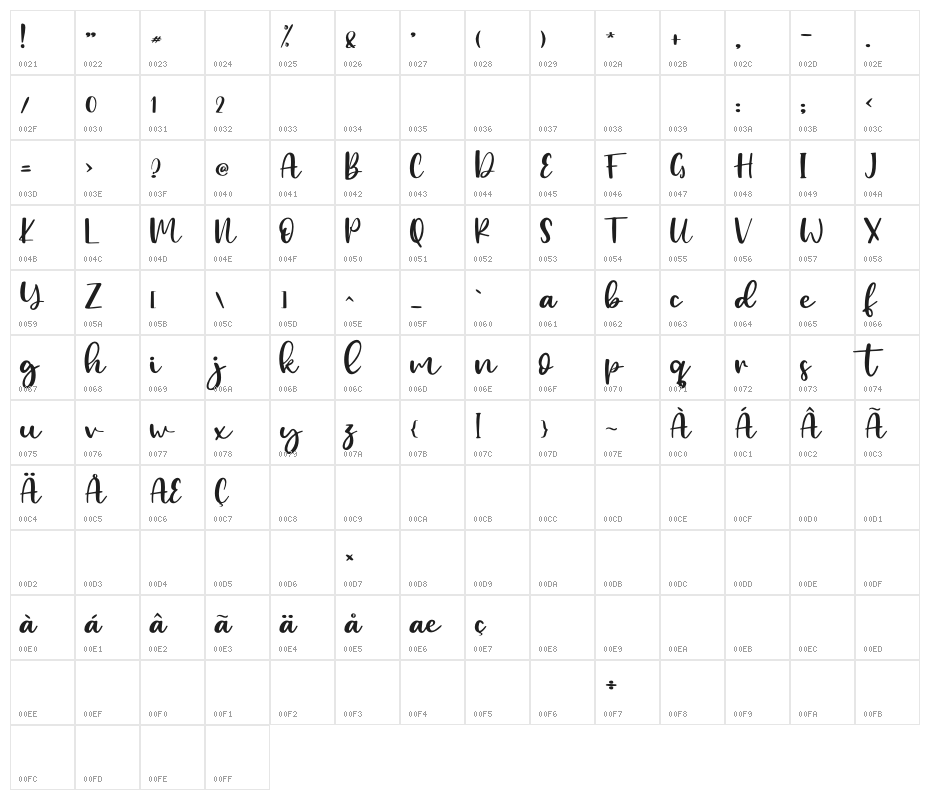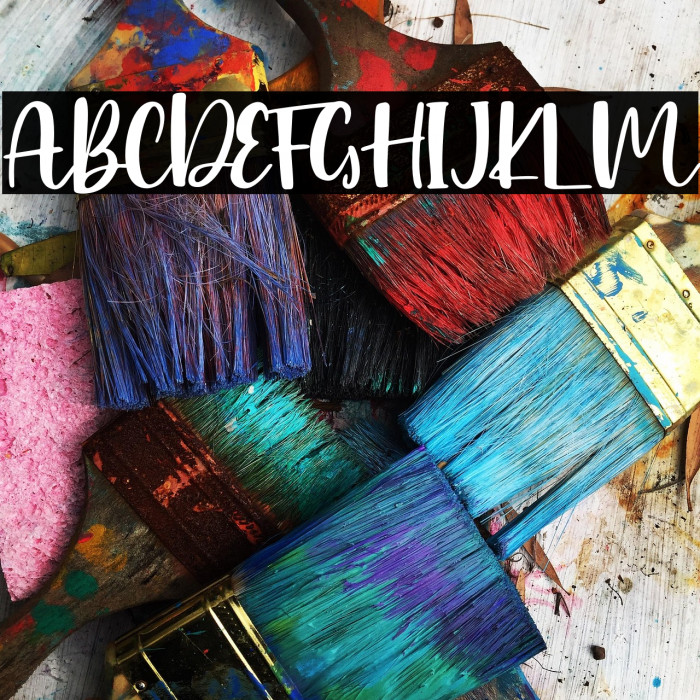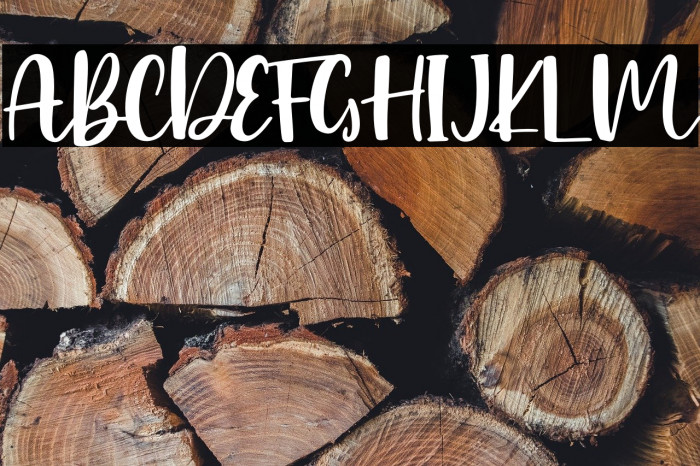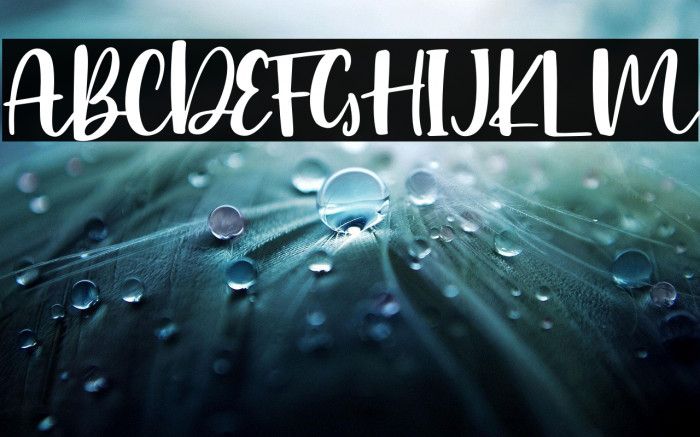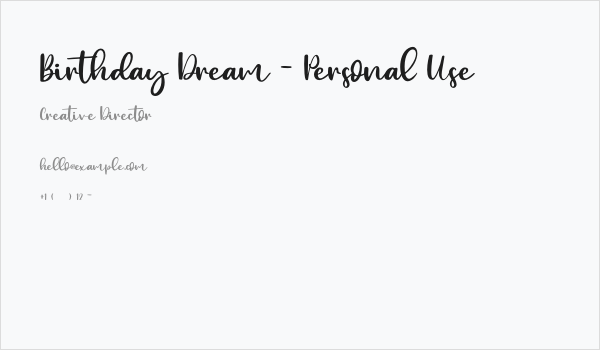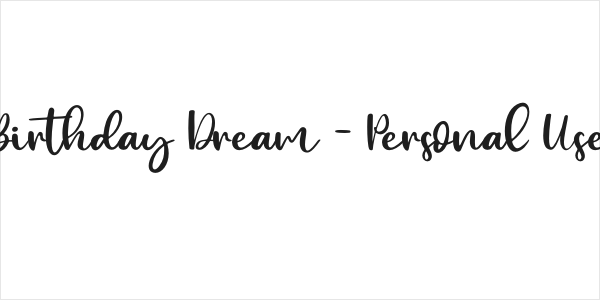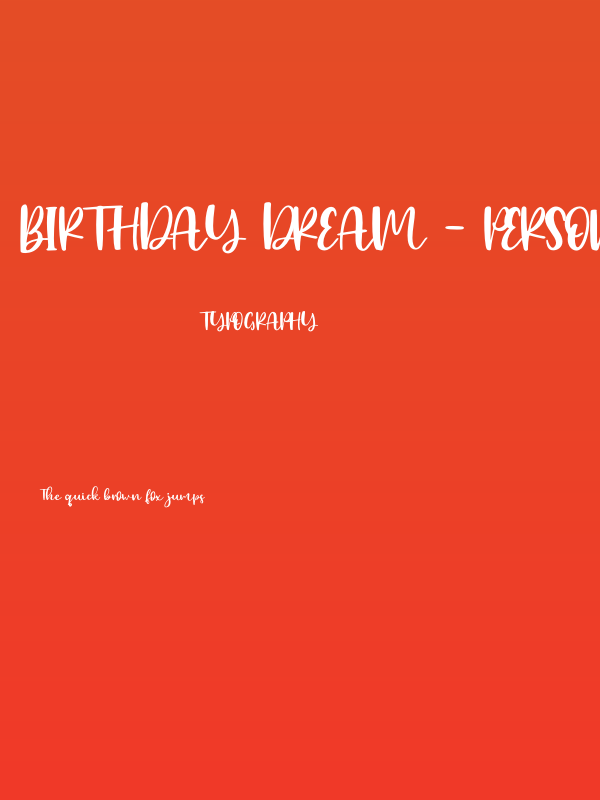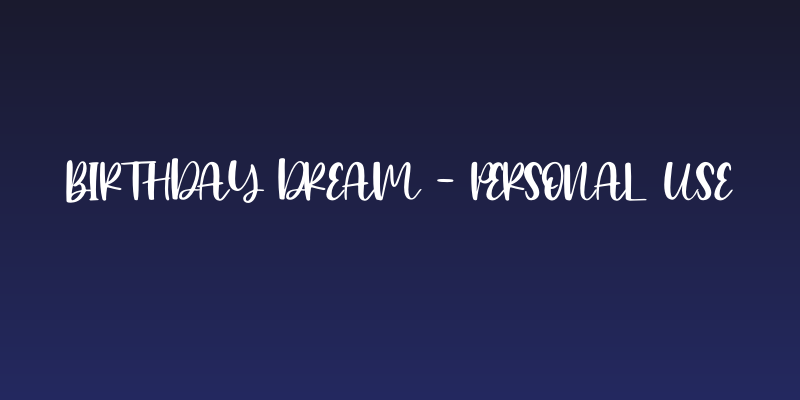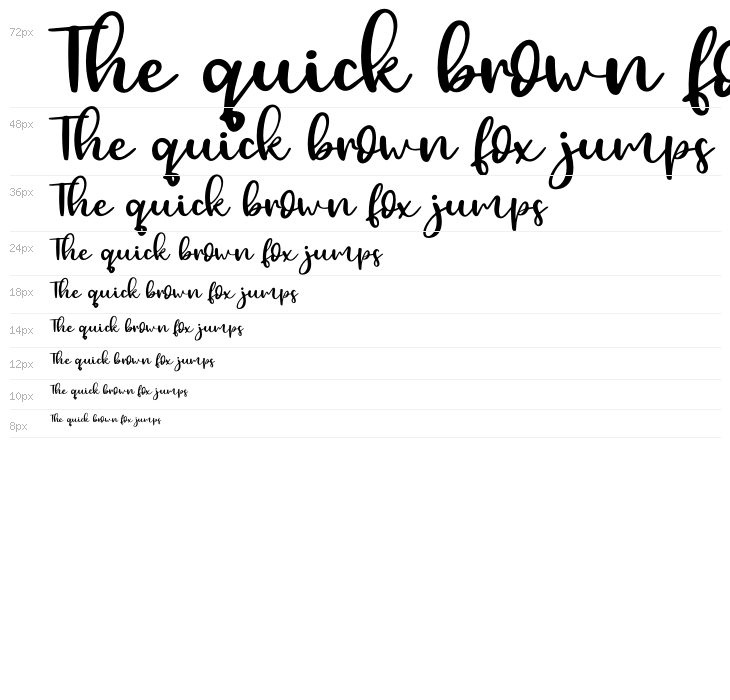
Birthday Dream - Personal Use Font
Birthday Dream - Personal Use Description
This font features a playful and whimsical script style, characterized by its flowing, cursive letters that exude a sense of joy and celebration. The uppercase letters are bold and slightly slanted, with a consistent stroke width that adds to the font's lively appearance. The lowercase letters maintain the same playful aesthetic, with loops and curves that enhance its handwritten feel. Numbers and special characters are designed to match the overall style, ensuring a cohesive look across all text. This font is perfect for projects that require a personal touch, such as invitations, greeting cards, and other celebratory materials.
| Proposed Projects | Ideal for invitations, greeting cards, and celebratory materials. |